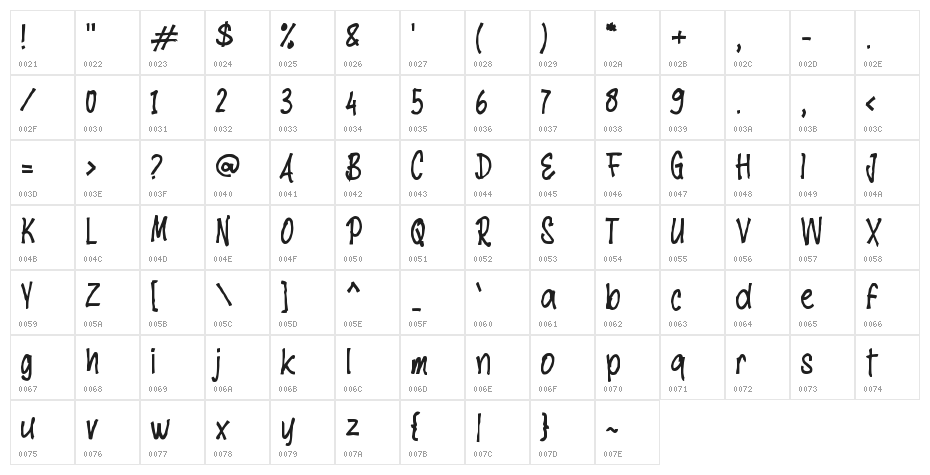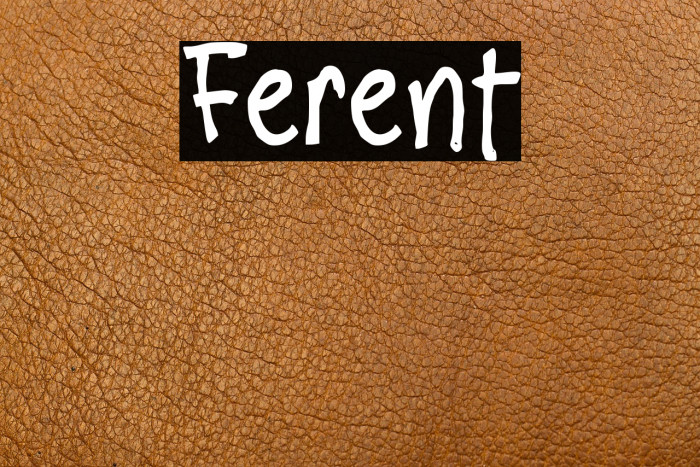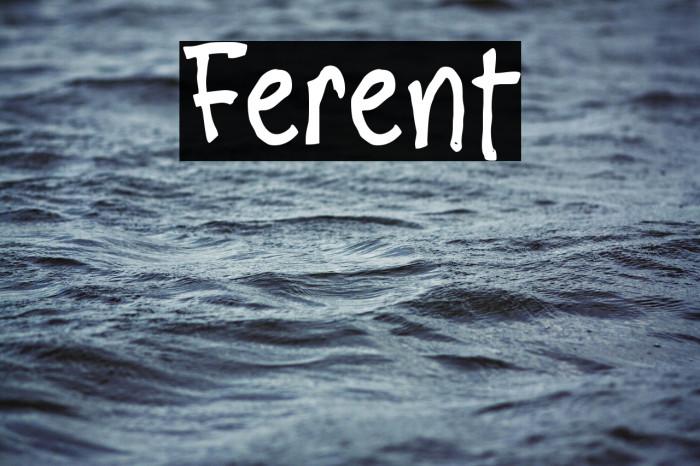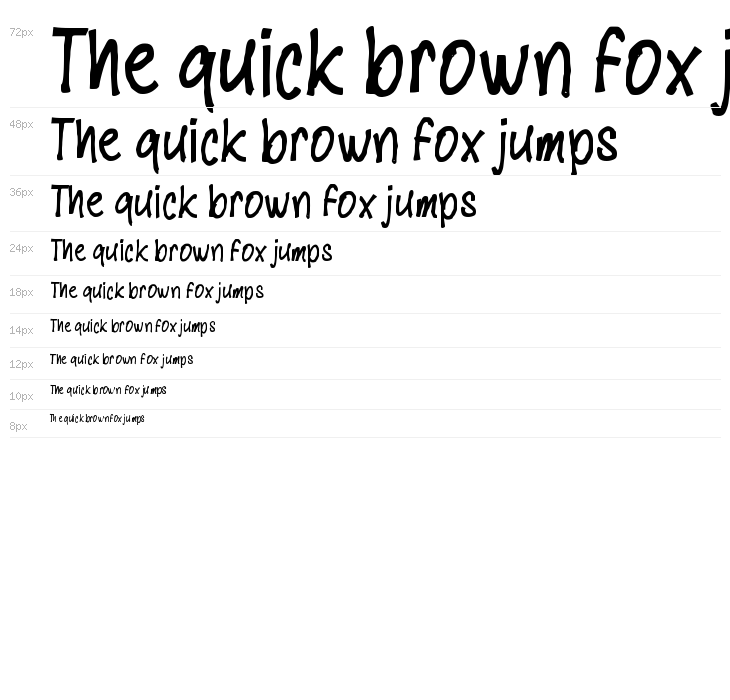
Ferent Font
Ferent Description
This font features a bold and expressive handwritten style, characterized by its dynamic and playful appearance. Each letter is crafted with a slightly uneven stroke, giving it a casual and organic feel. The uppercase letters are tall and slightly narrow, while the lowercase letters maintain a consistent flow with rounded edges. Numbers and special characters follow the same lively style, ensuring a cohesive look across all text. The font's energetic and informal nature makes it ideal for projects that require a personal touch.
| Proposed Projects | Ideal for greeting cards, invitations, posters, and branding projects that require a personal and lively touch. |